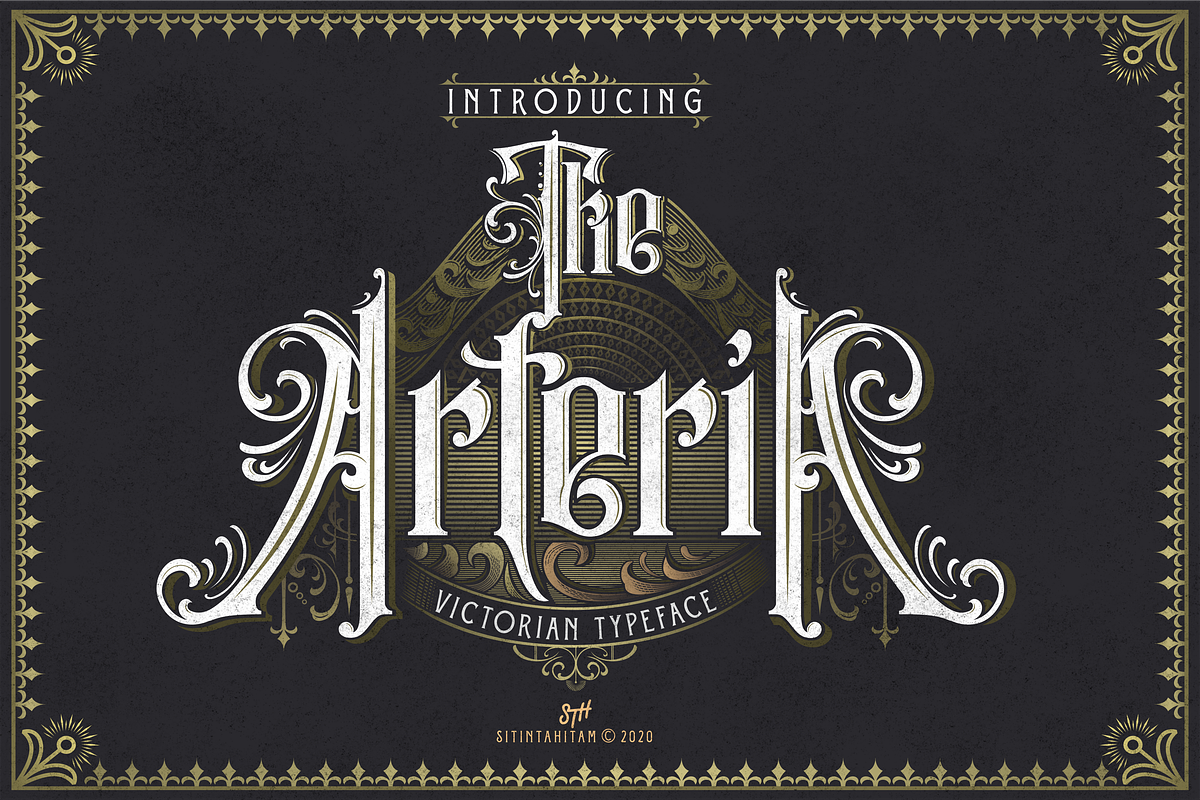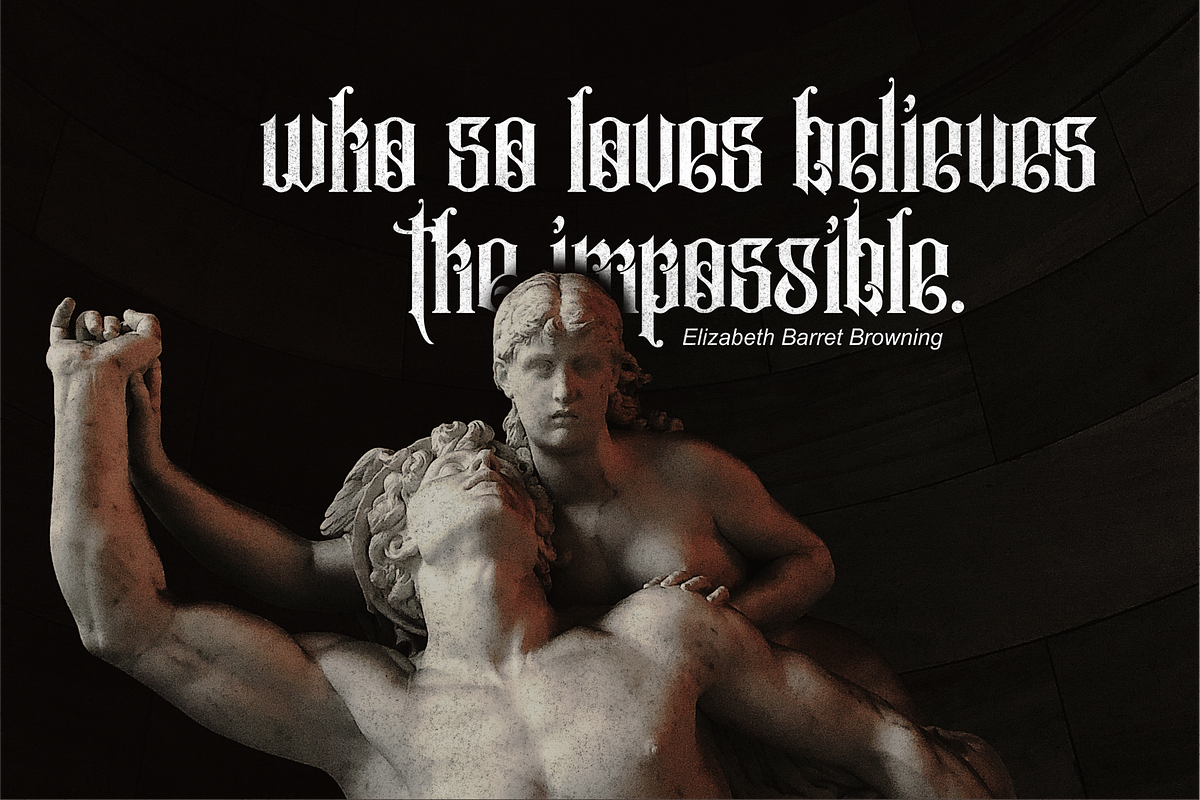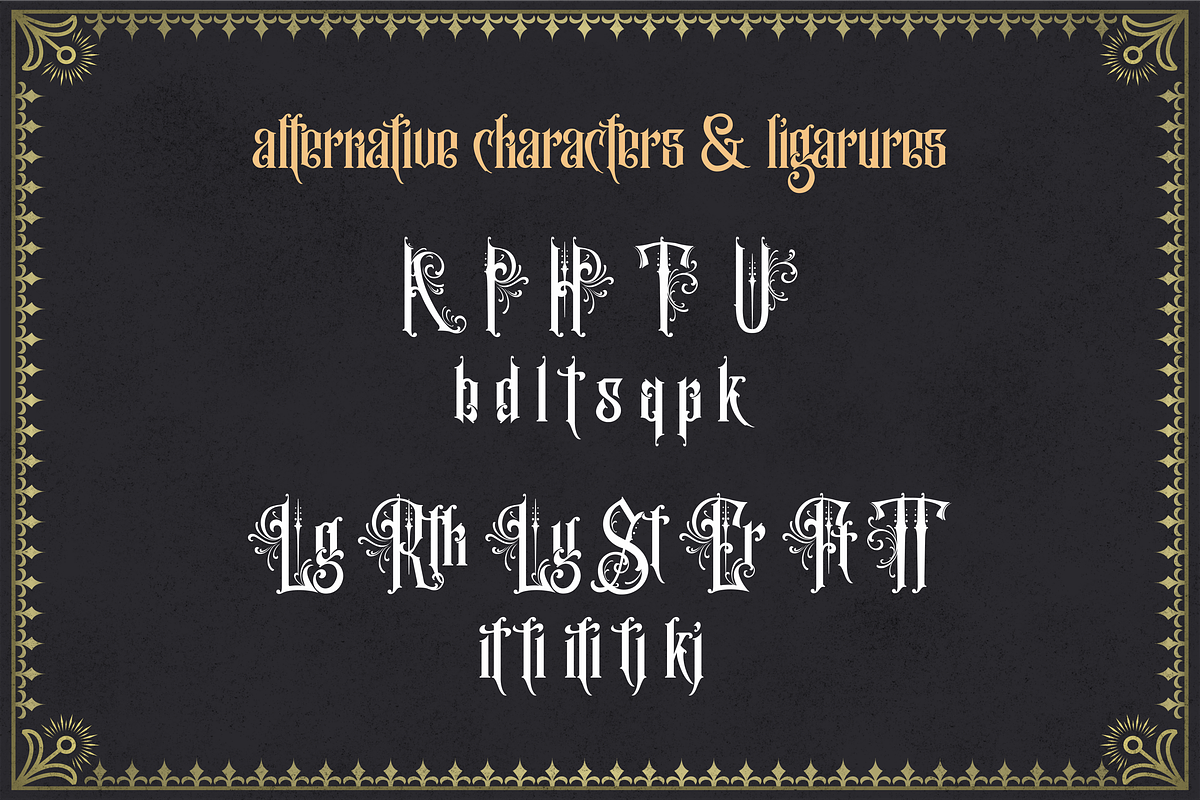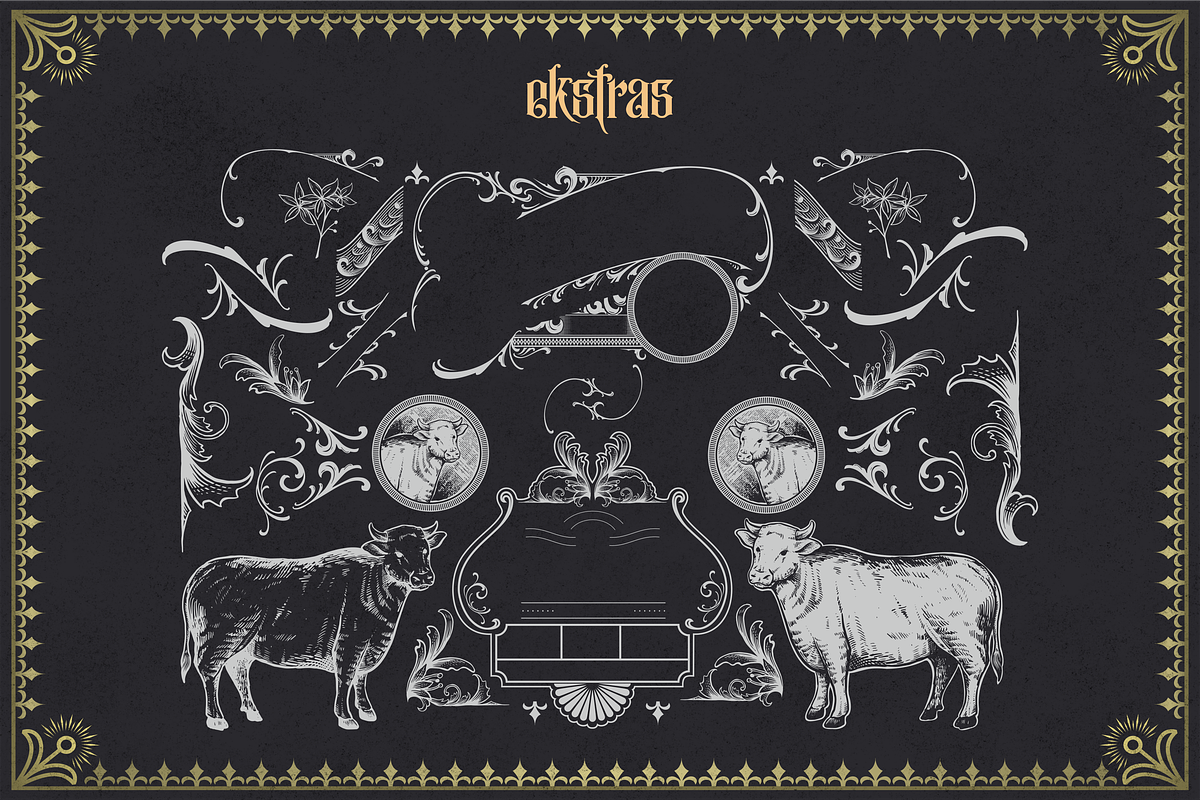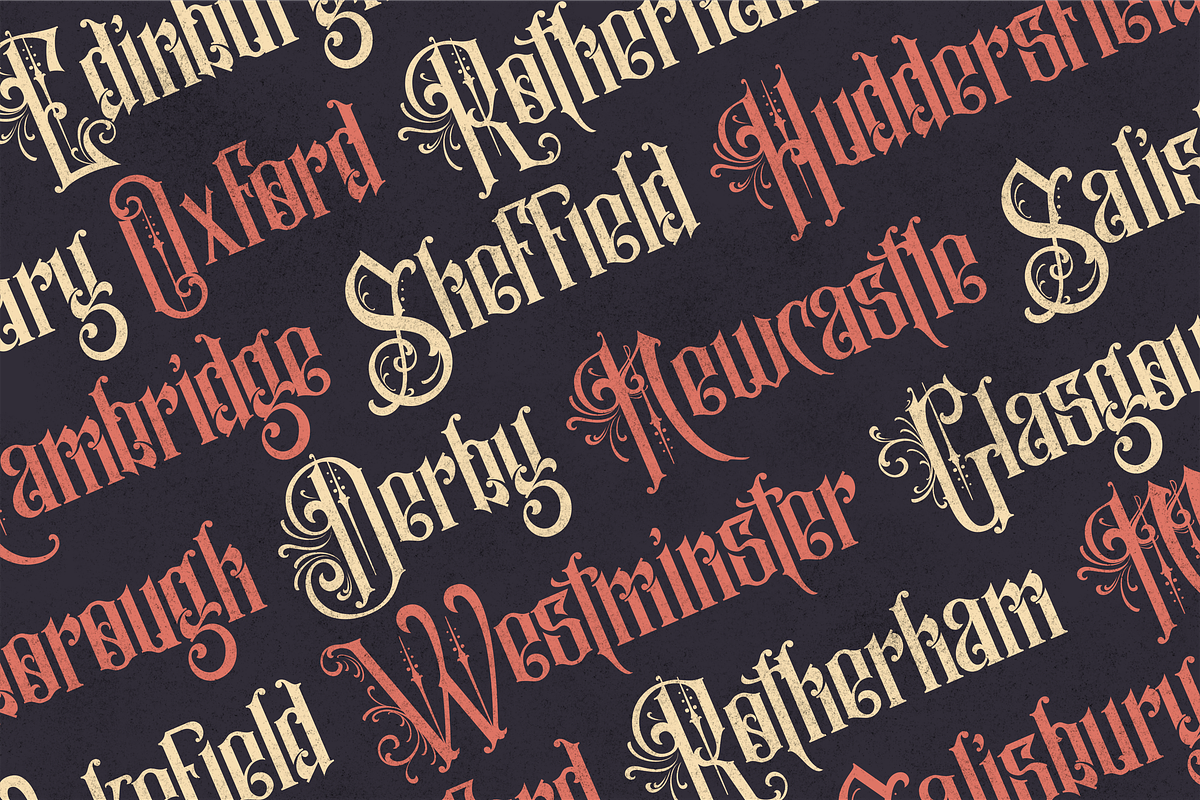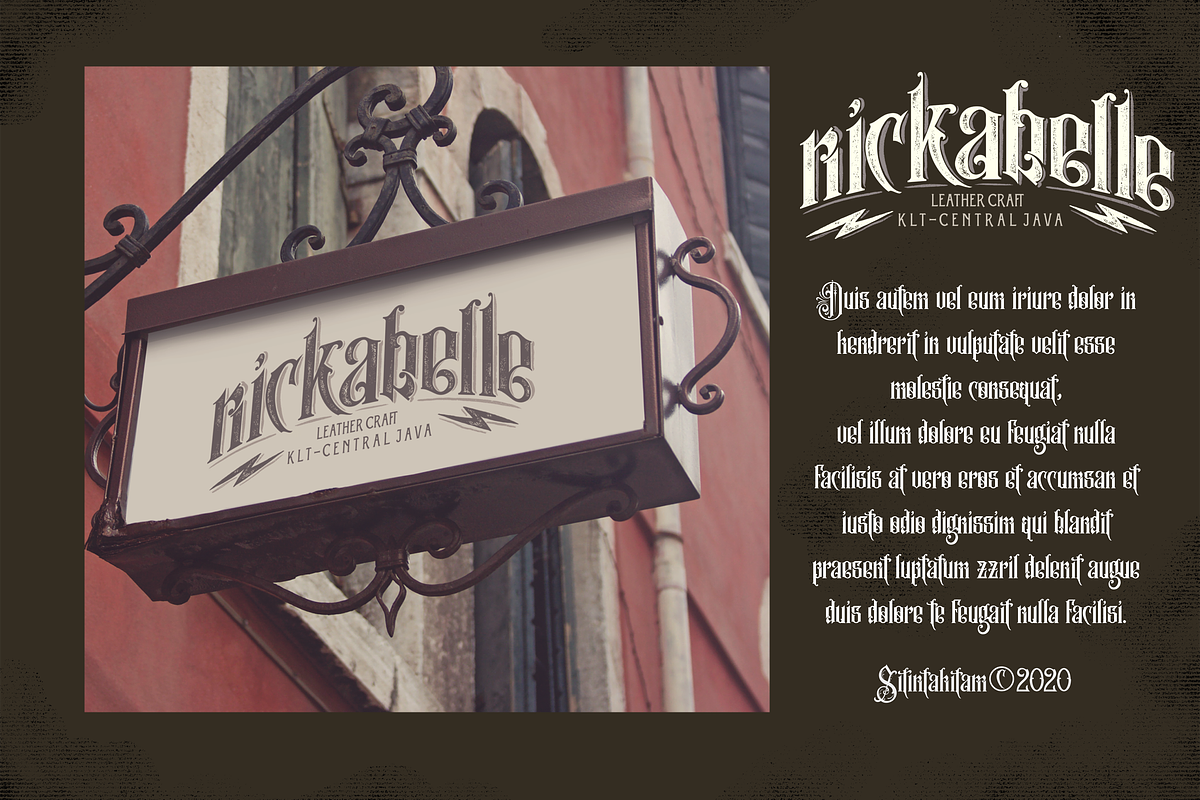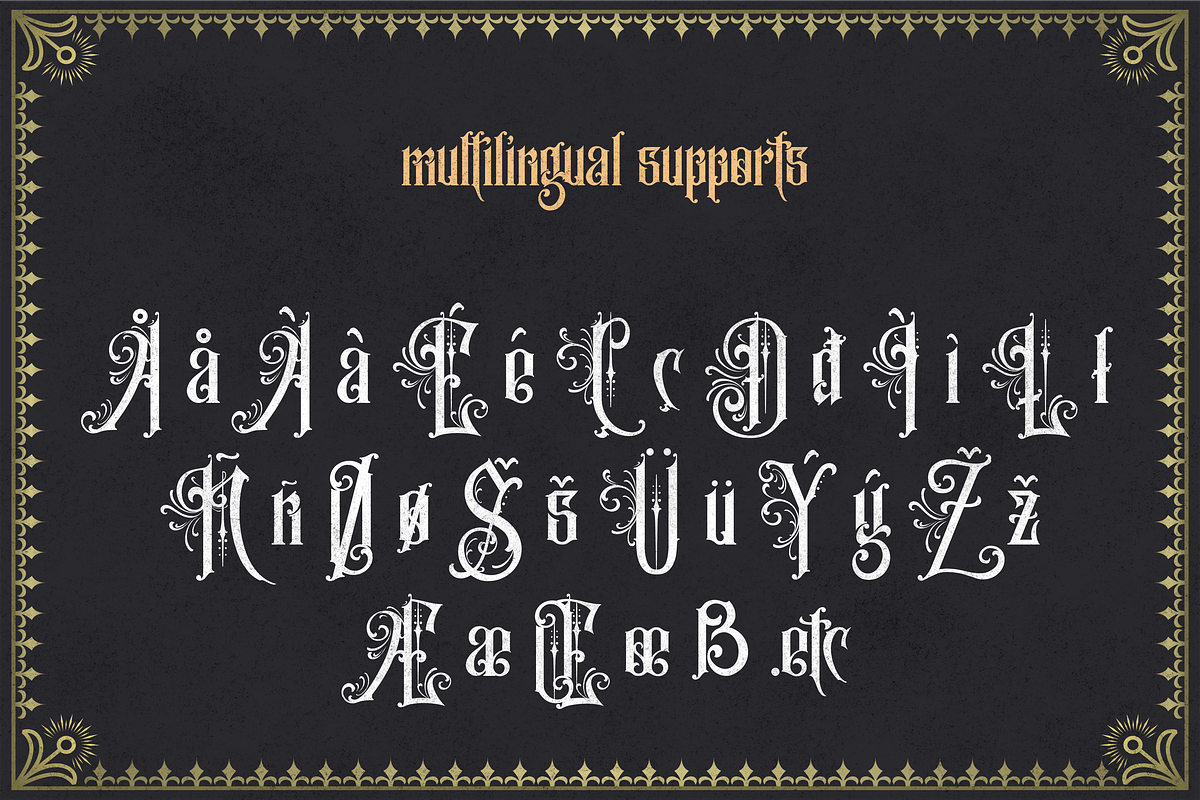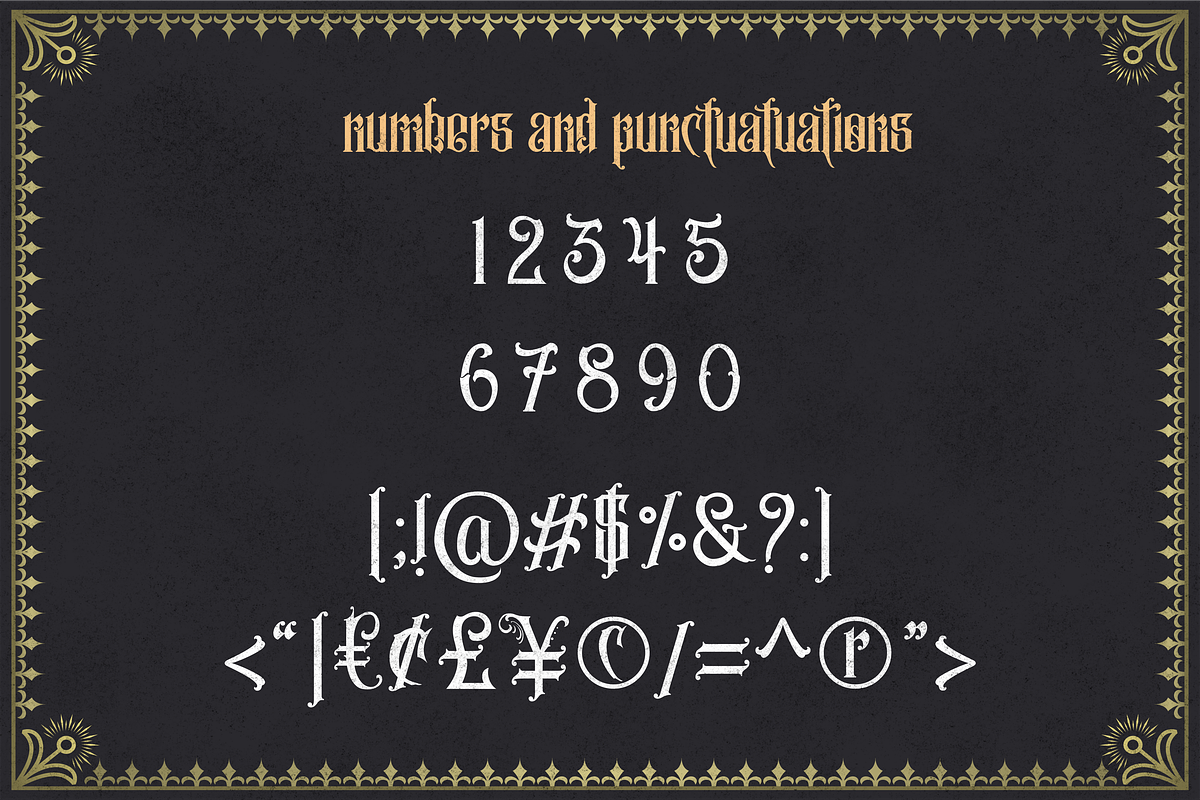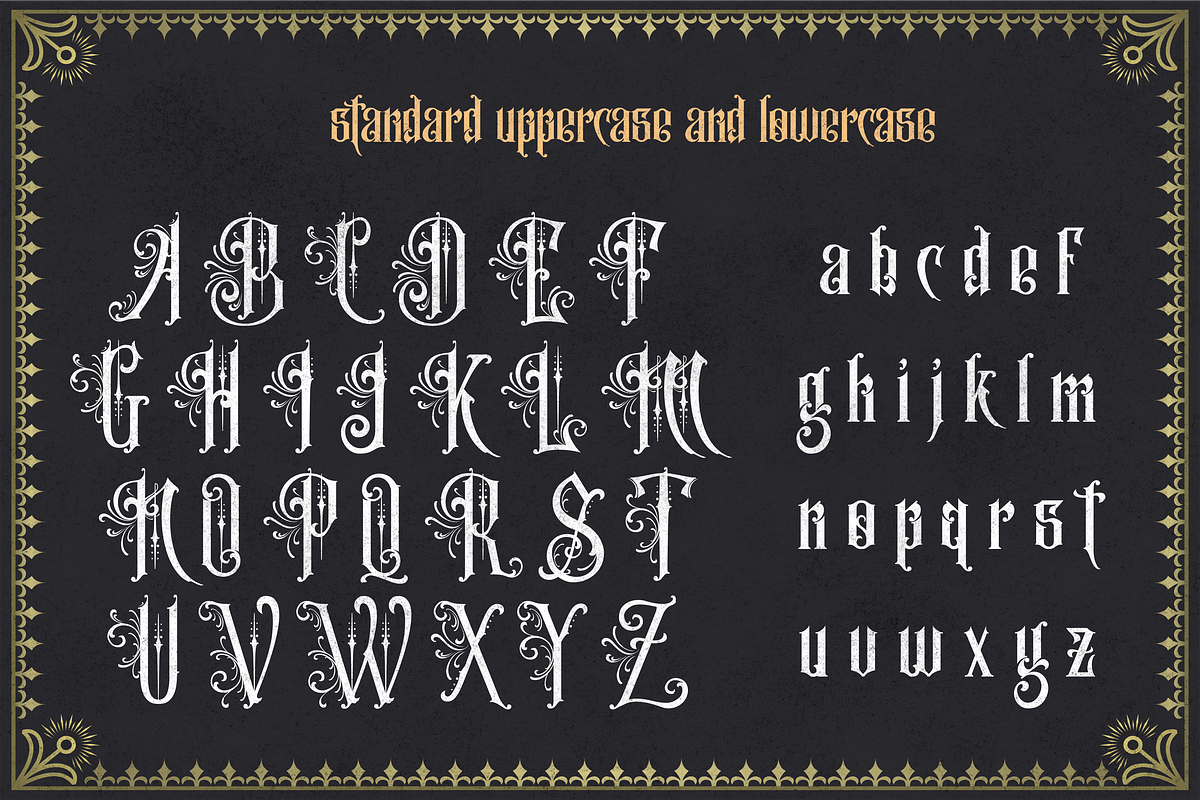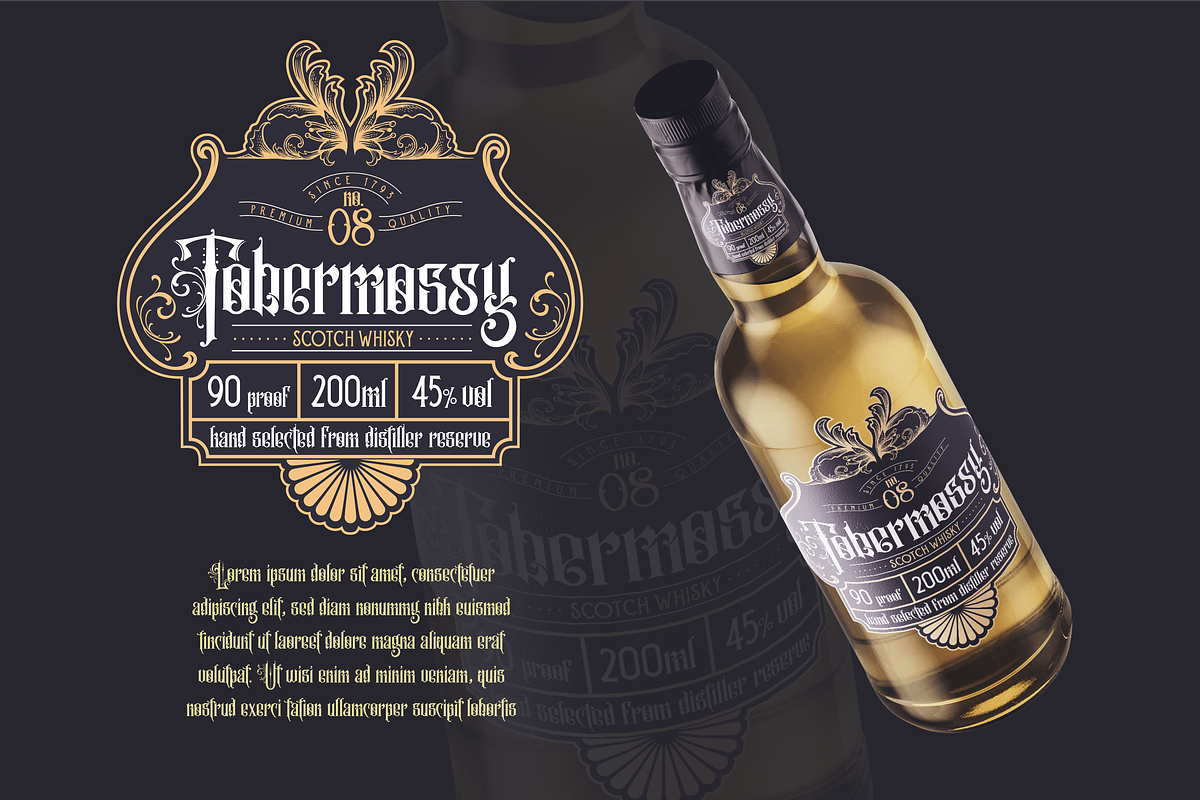
Arteria + Ekstras
THE ARTERIA
Victorian style are inspiration for creation of The Arteria. The Arteria comes with classic and vintage impression, it will be interesting to make a headlines, packaging design and vintage style logotype like a liquor logo, vintage logo, sign vintage logo, quote typography, and tshirt design. The Arteria also includes a set of vintage victorian decorative ornaments as well as some illustration. This combination allows you to easily develop awesome vintage designs.
The Arteria have a features like Uppercase, Lowercase, Numerials, Punctuations, Alternative Characters, Ligatures, Extras Ornaments, and Vintage Vector Illustration, and Support Multilingual Characters. Preview also using Eversthedin Font,you can get in https://creativemarket.com/sitintahitam/4716458-Eversthedin-Extras